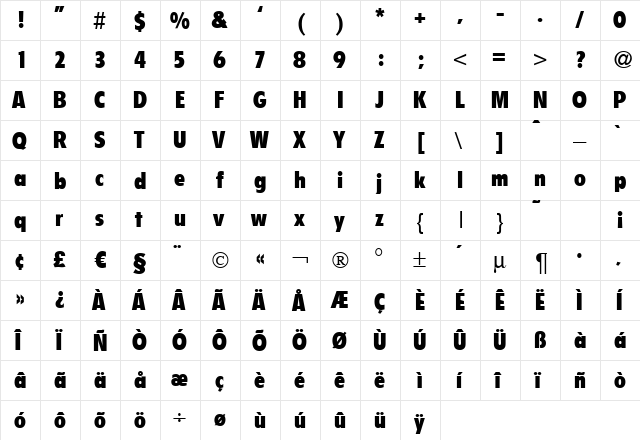
FlipperCd Bold
Design Context for FlipperCd Typeface
FlipperCd offers clean, dependable letterforms without strong stylistic allegiance, making it a practical choice for designers who need flexibility. Its bold stroke weight gives it real presence on the page.